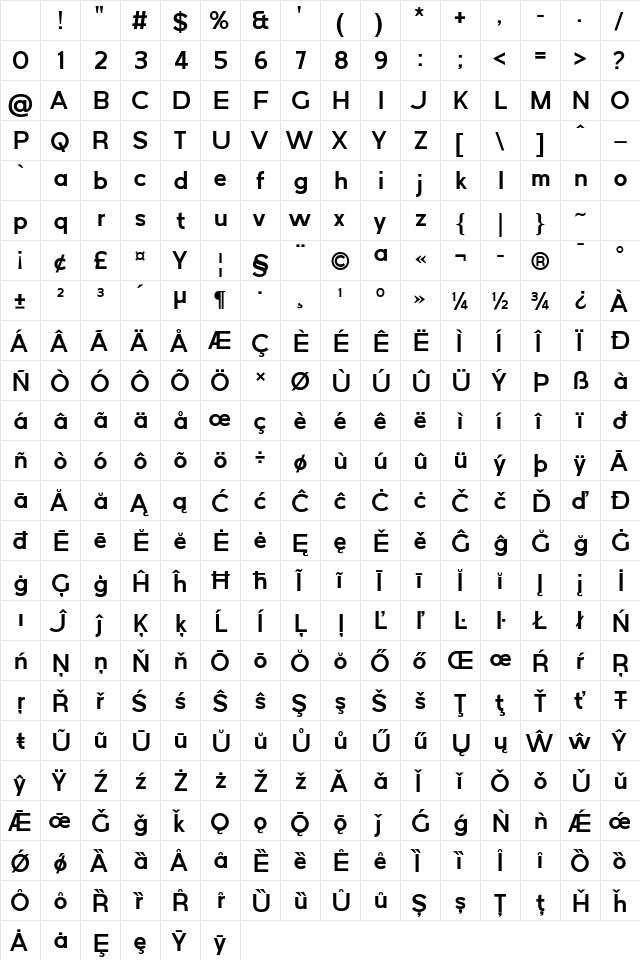
Complete Germagont Bold glyph index. Displaying only characters natively supported by Germagont Bold font.
Germagont is a composed and adaptable typeface that performs quietly and consistently across a wide range of design contexts. Its bold stroke weight gives it real presence on the page.